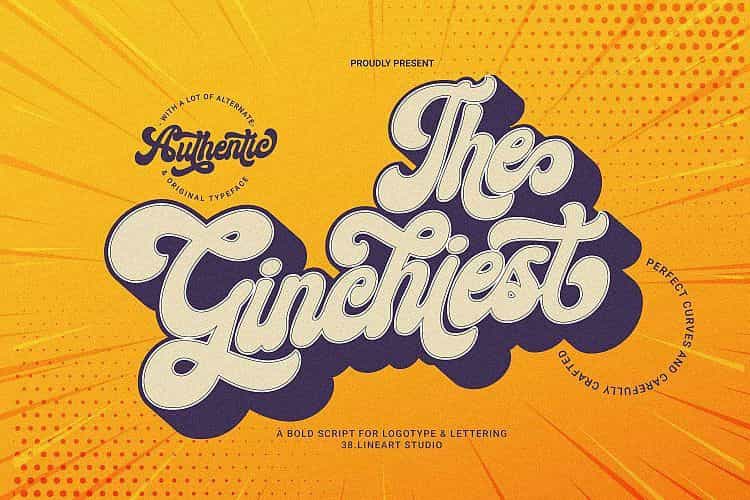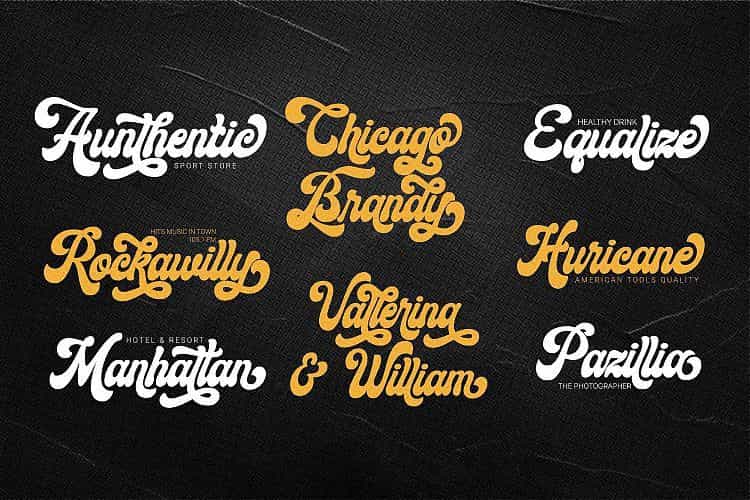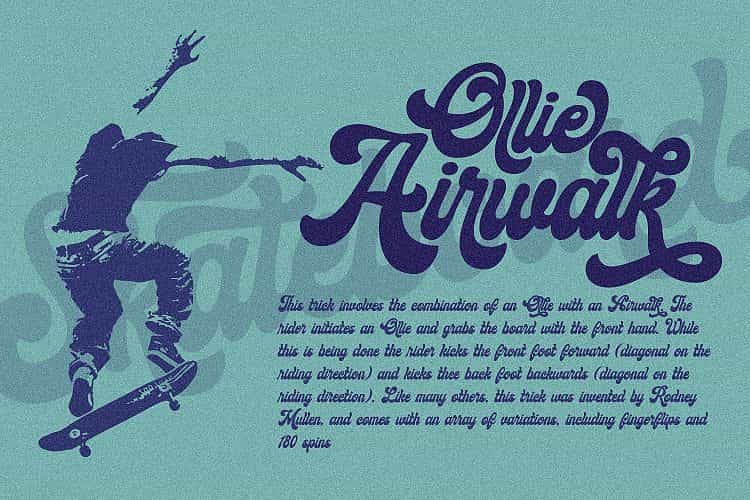
Introducing The Ginchiest Font. A brave script for logo and lettering. Influenced by the modern retro trend and the brush calligraphy. If you are in search of such a typeface, then it is just right for your work. The Ginchiest is a brave script font with a retro vintage style.